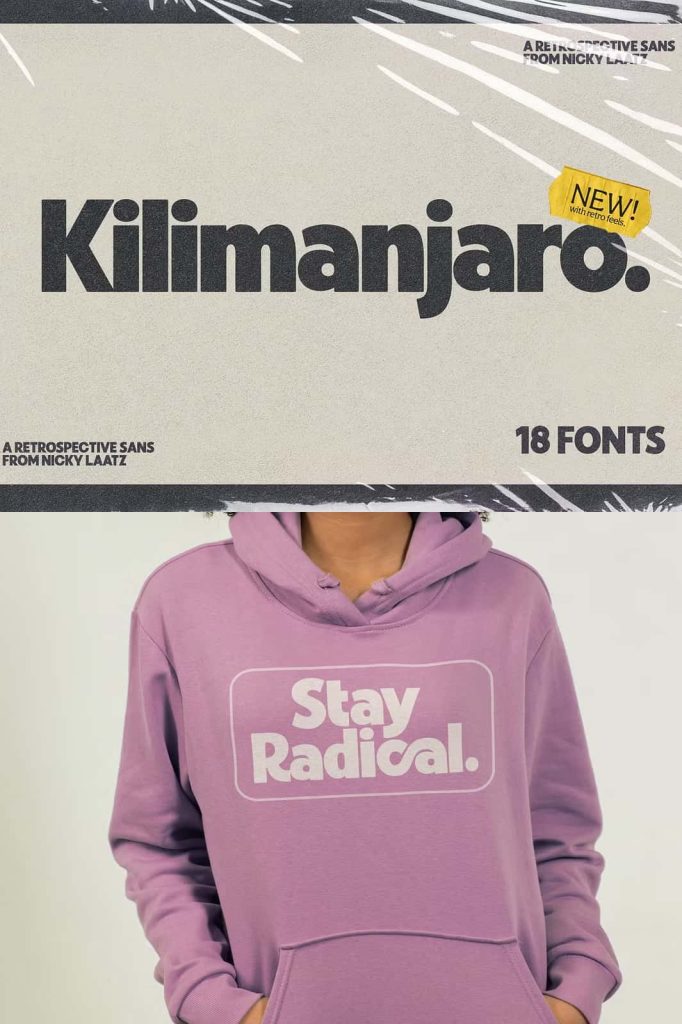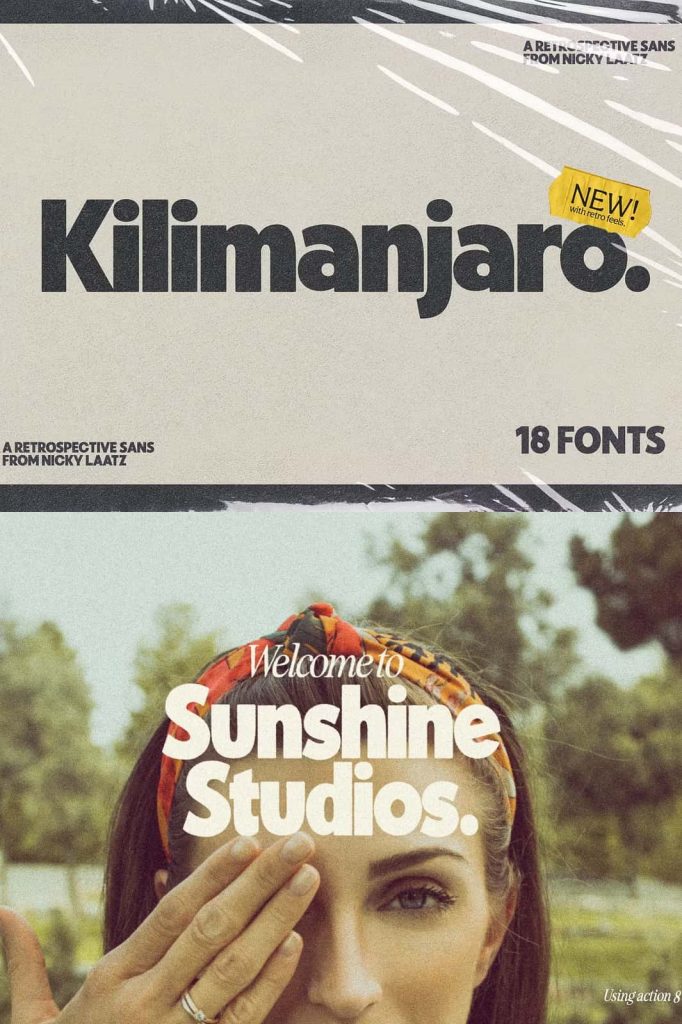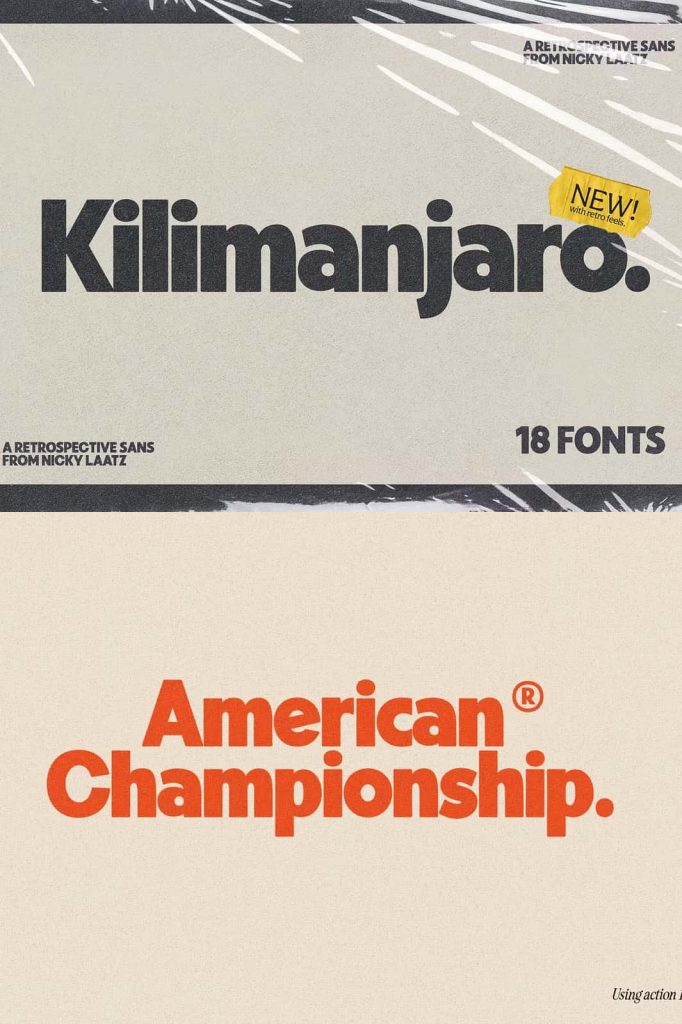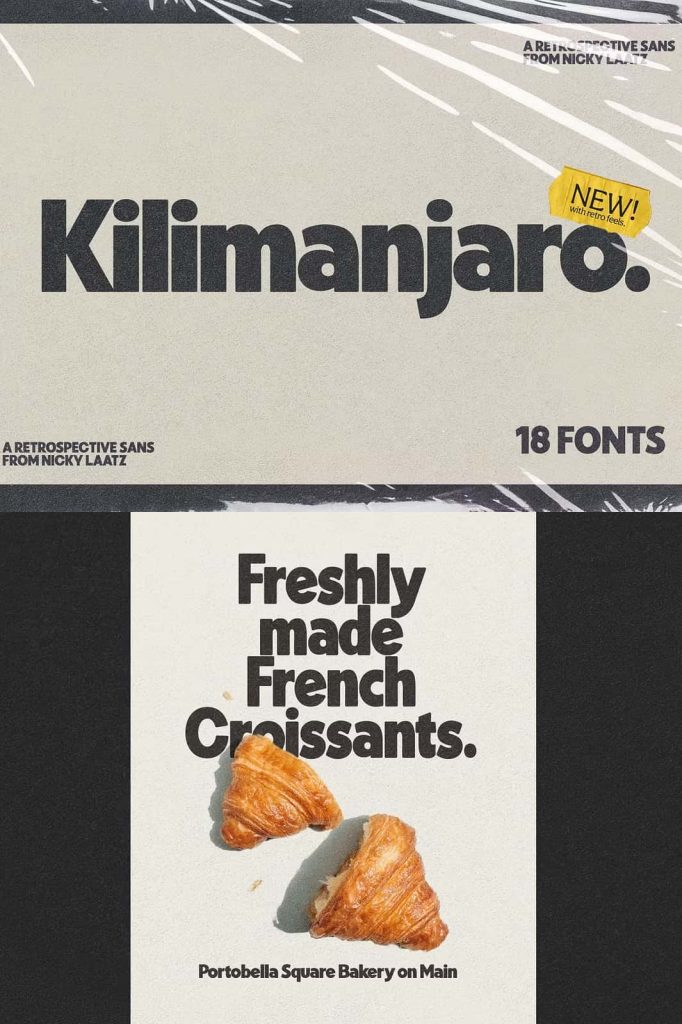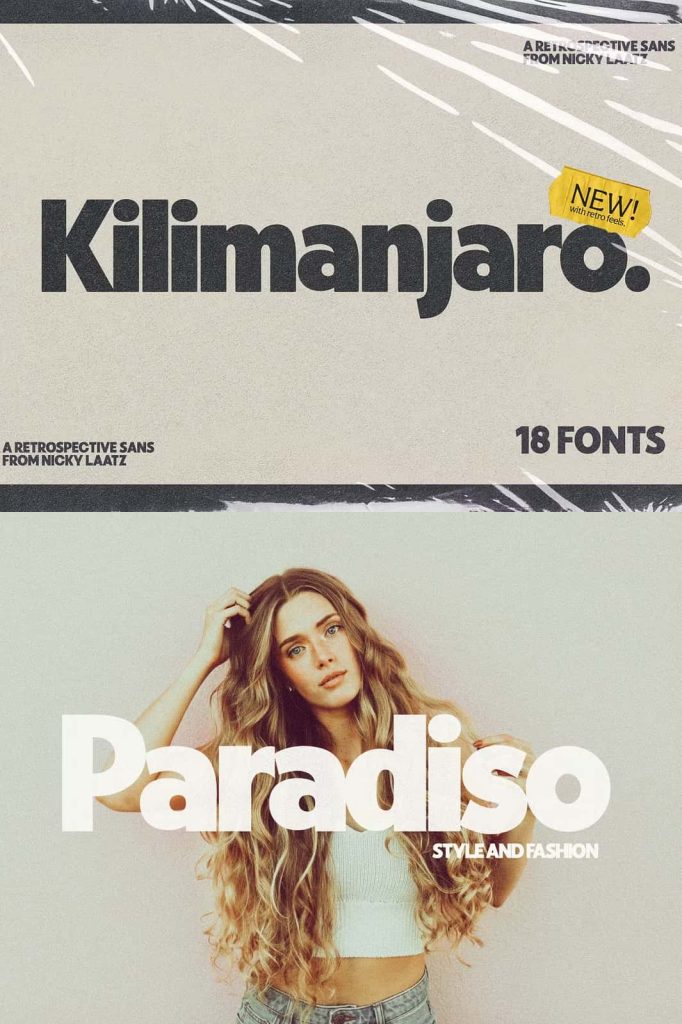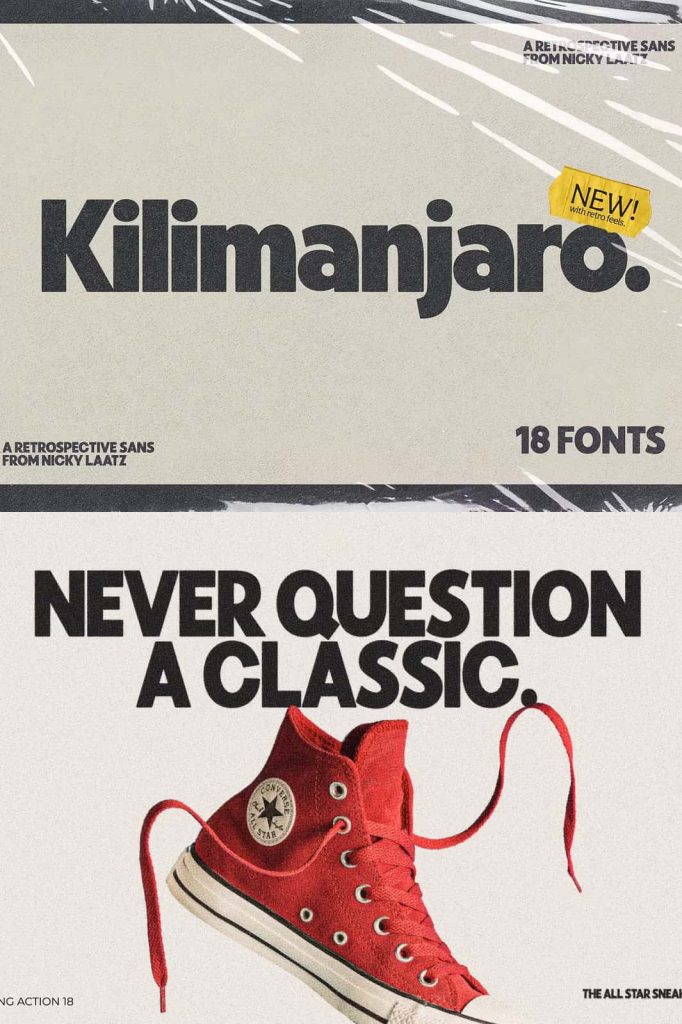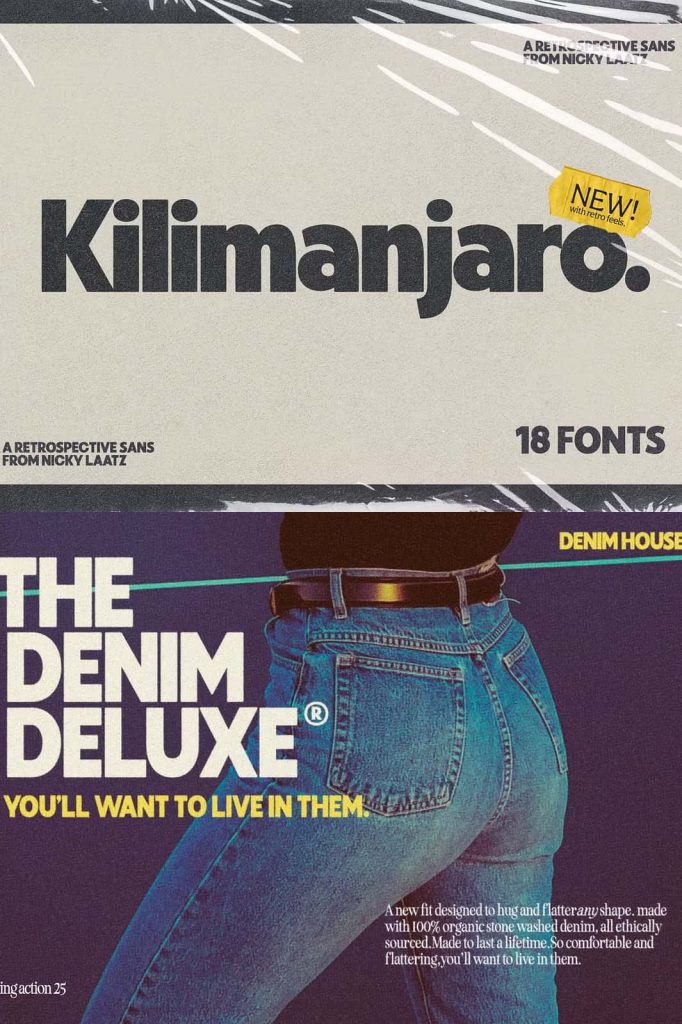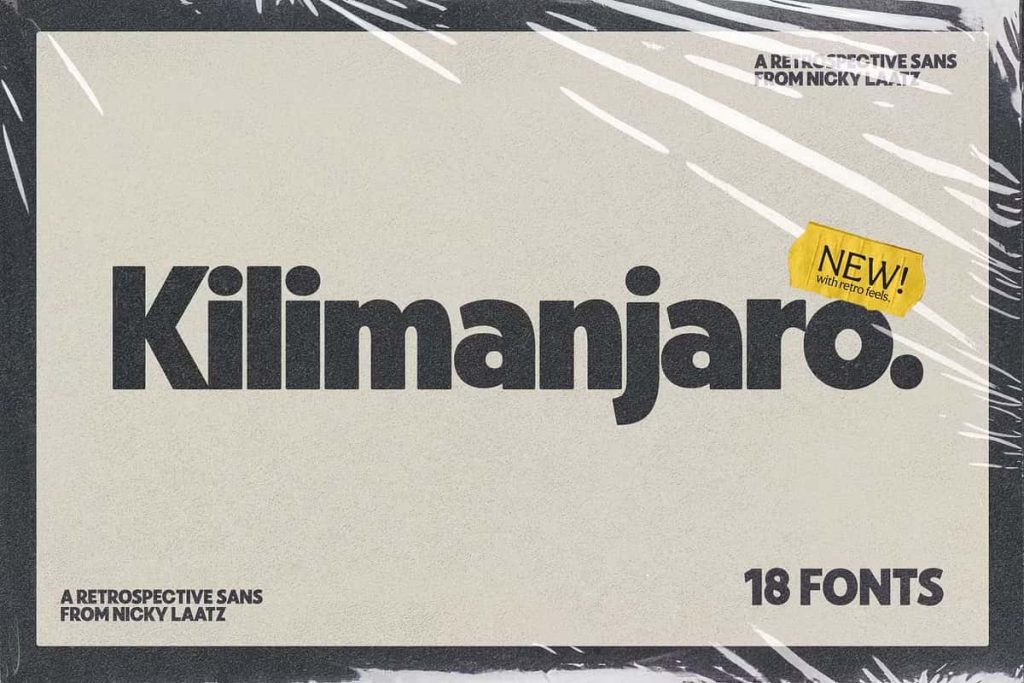
Kilimanjaro Sans (36 fonts)leastedJuly 3, 2025Fonts Kilimanjaro Sans – a loud and formidable retro-inspired font with extra Opentype alternates and discretionary Download